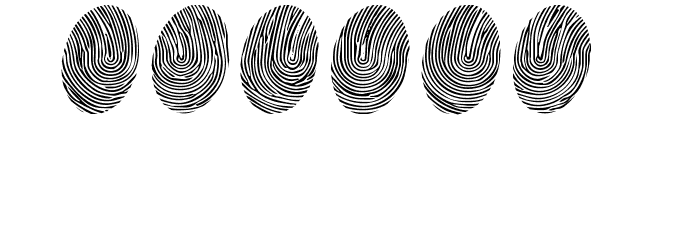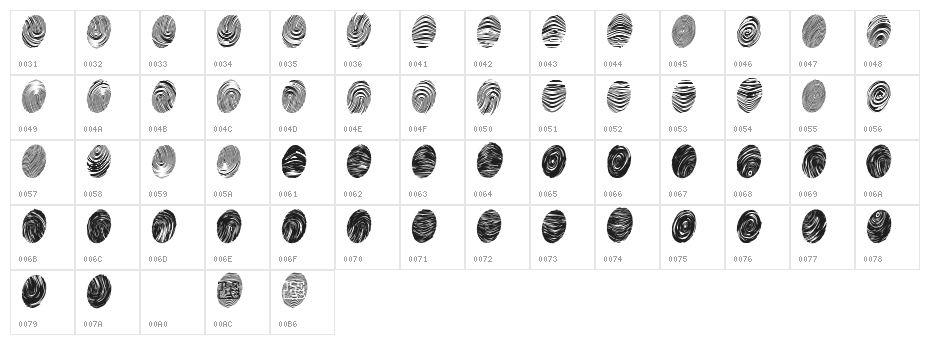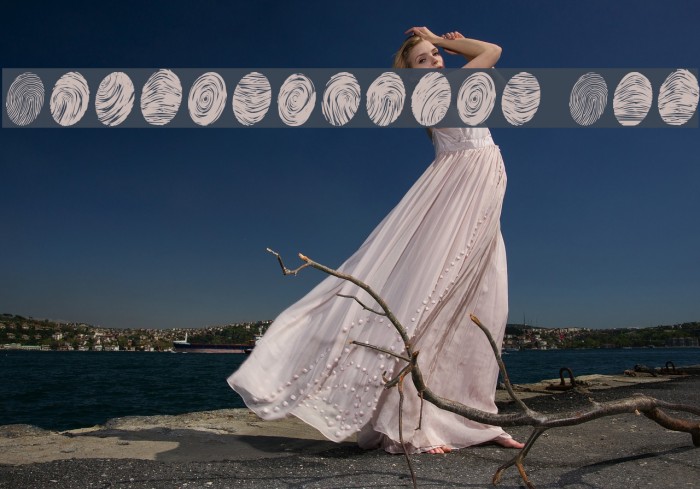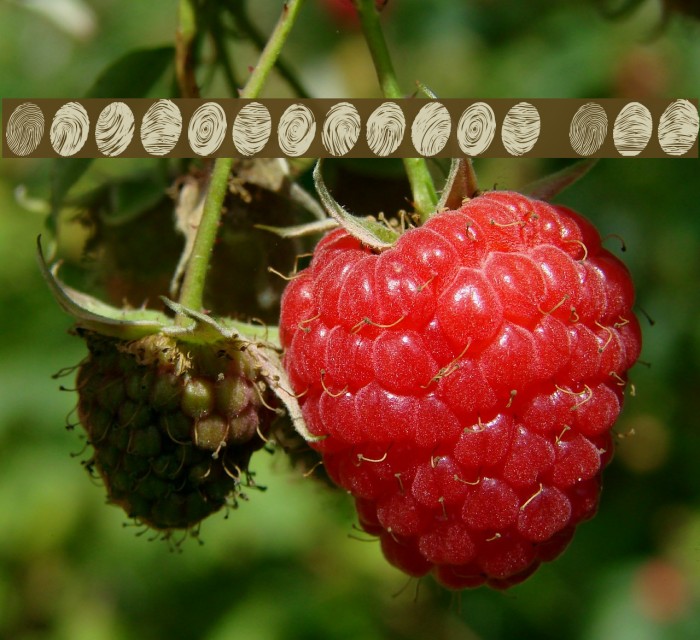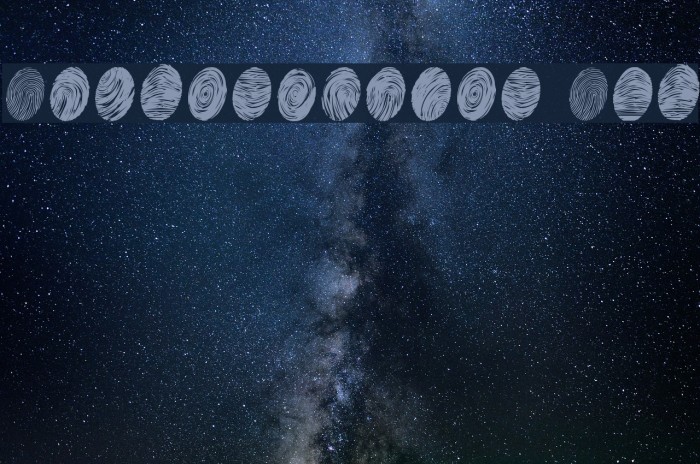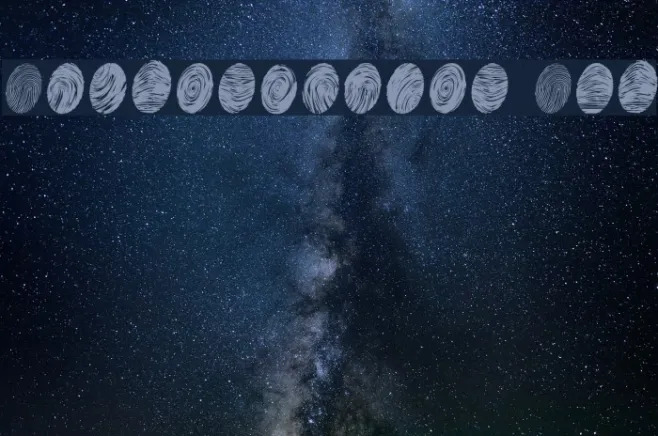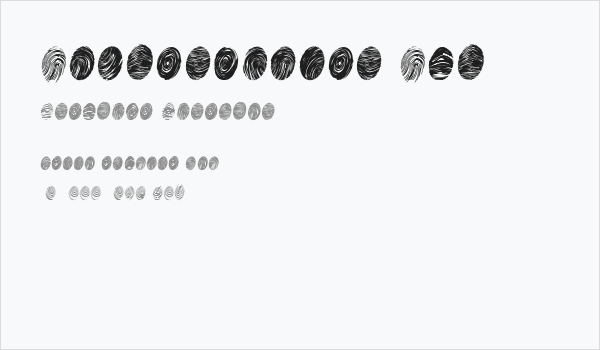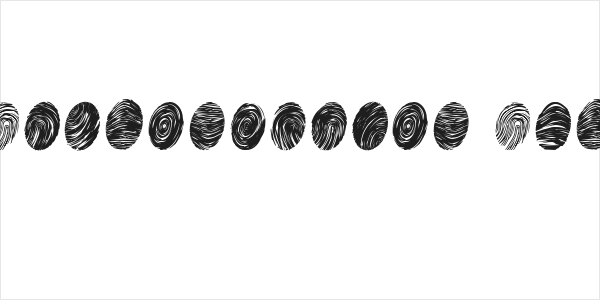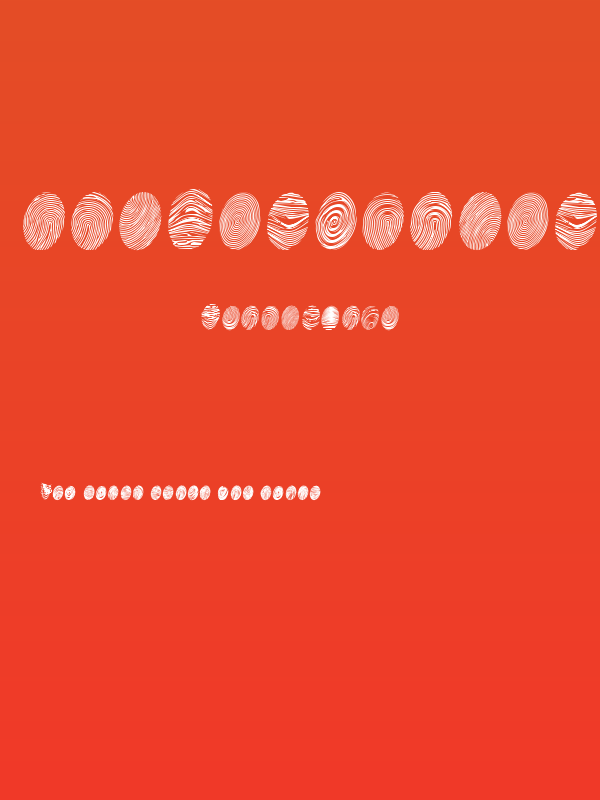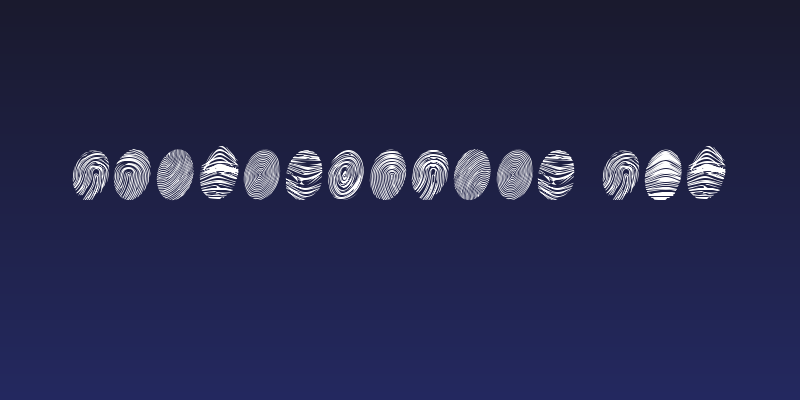
Powderfinger Pad Font
A decorative typeface composed of fingerprint-like circular patterns for each character, with varying line thickness and density, creating a unique and organic appearance.
Overall StyleDecorative, Organic, Artistic
Use CaseLogos, Headlines, Posters, Artistic projects
Proposed ProjectsPosters, album covers, branding for security or forensic themes, art installations, creative packaging.